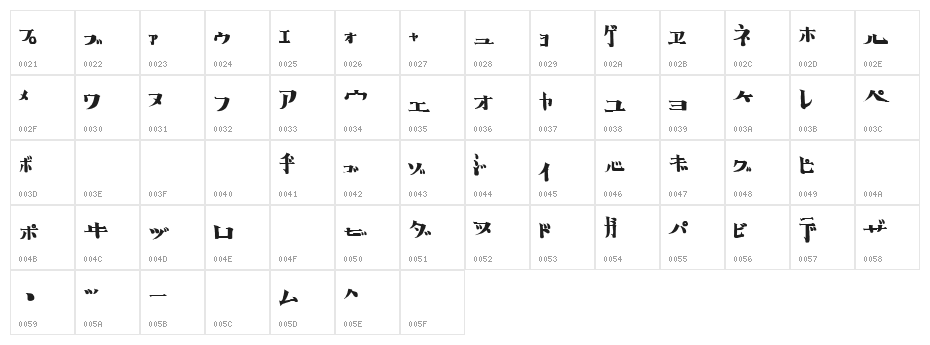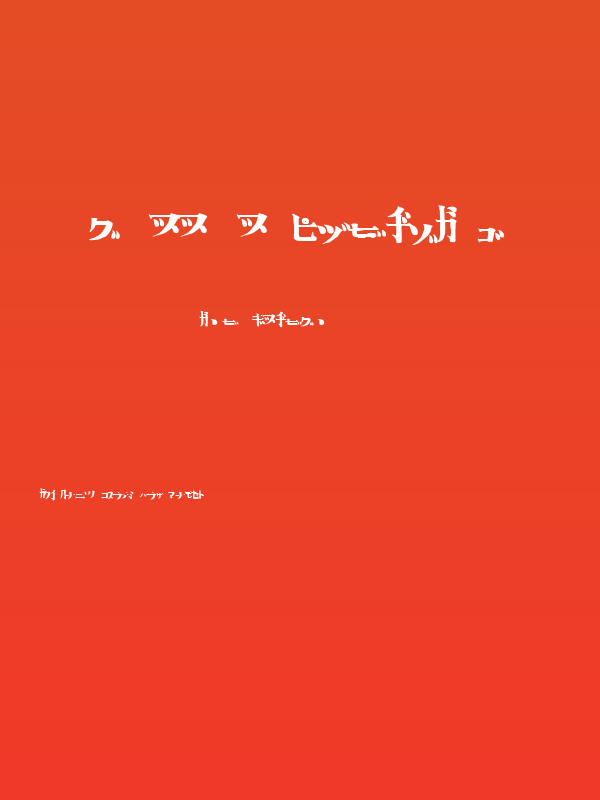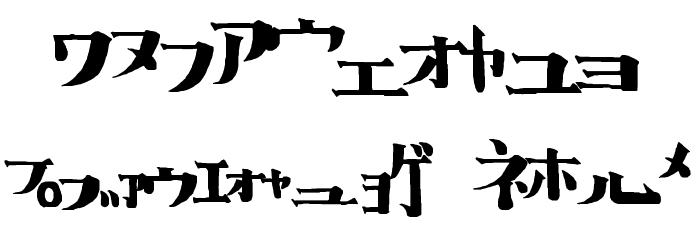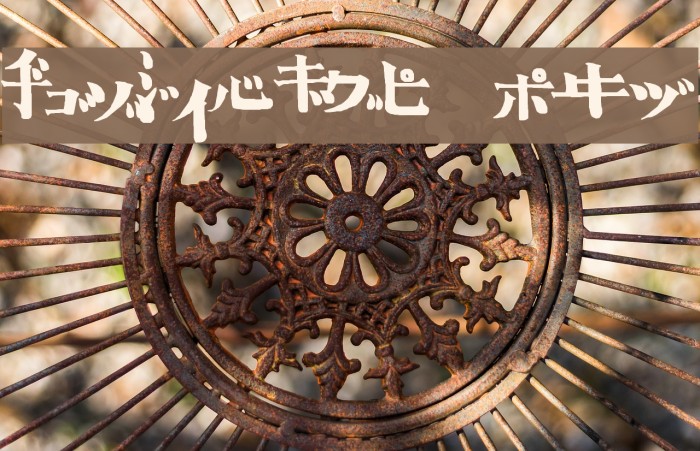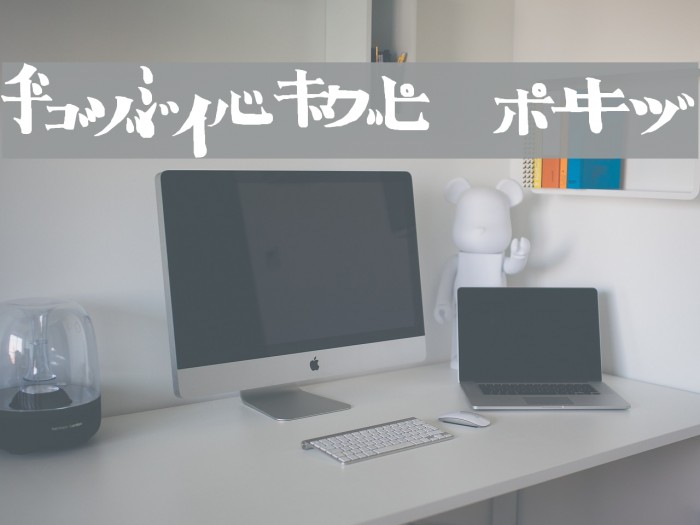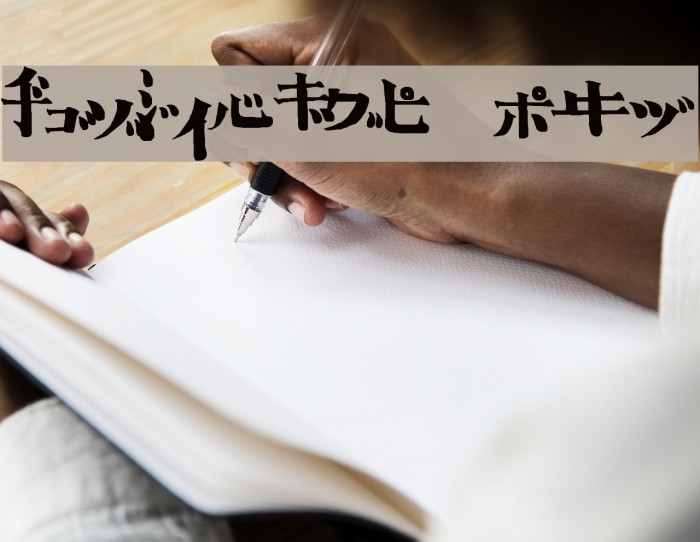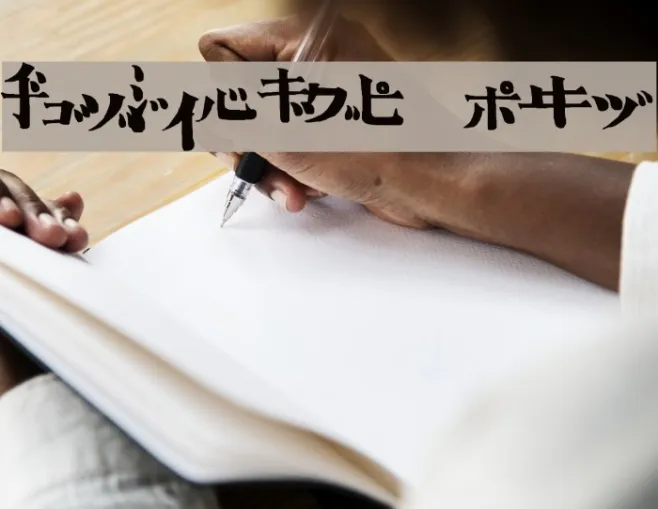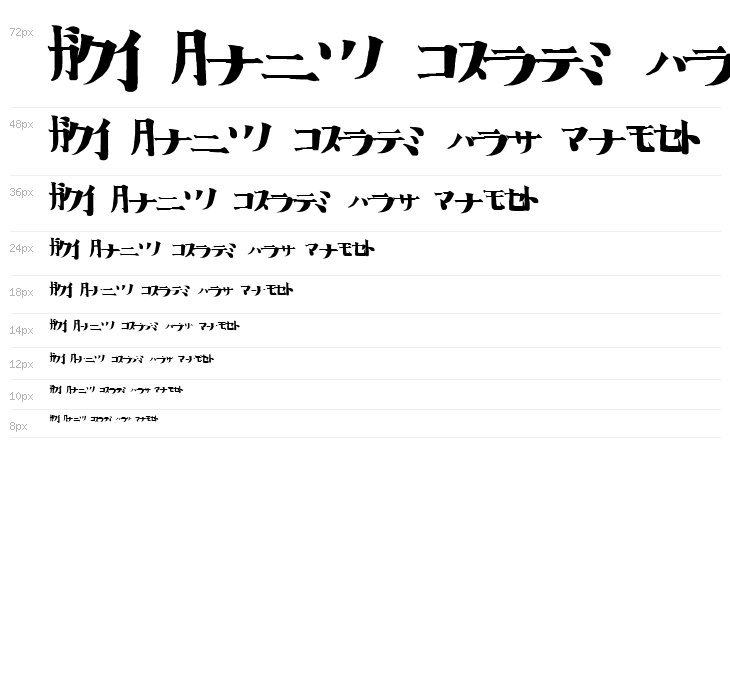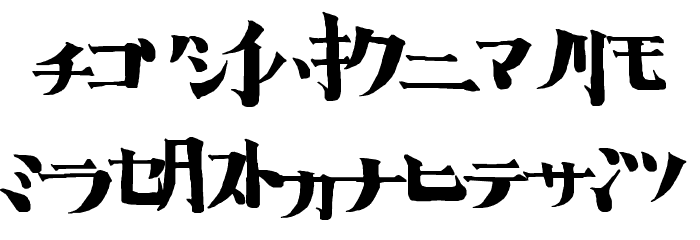
Horror Impact B Font
Horror Impact B Description
This font features a bold and impactful design with a horror-themed aesthetic. The characters are jagged and irregular, giving a sense of unease and tension. The strokes are thick and uneven, creating a chaotic and distressed appearance. This style is reminiscent of horror movie posters or Halloween-themed designs, where the intention is to evoke fear and suspense. The font's unique and dramatic flair makes it stand out, capturing attention with its intense and unsettling vibe.
| Overall Style | Horror, Dramatic |
| Use Case | Headlines, Posters, Themed Events |
| Proposed Projects | Ideal for horror movie posters, Halloween event flyers, haunted house signage, or any project requiring a spooky and dramatic typeface. |